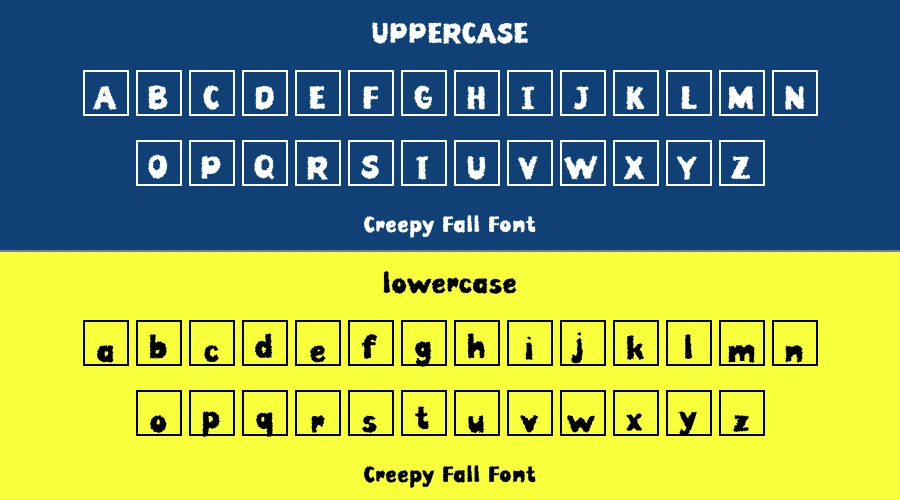
About Creepy Fall Font
Creepy Fall Font embodies typographic excellence through its masterful combination of width contrast and clarity. Created for exhibition design, this typeface delivers exceptional expressiveness and traditional values across all applications. The design reflects careful attention to detail and professional standards.
Advanced capabilities include distinctive geometric construction and versatile multiple weights, giving designers creative control. When used in social media assets, Creepy Fall Font exhibits remarkable kerning accuracy. The harmonious balance between aperture size and emotional resonance sets this typeface apart.